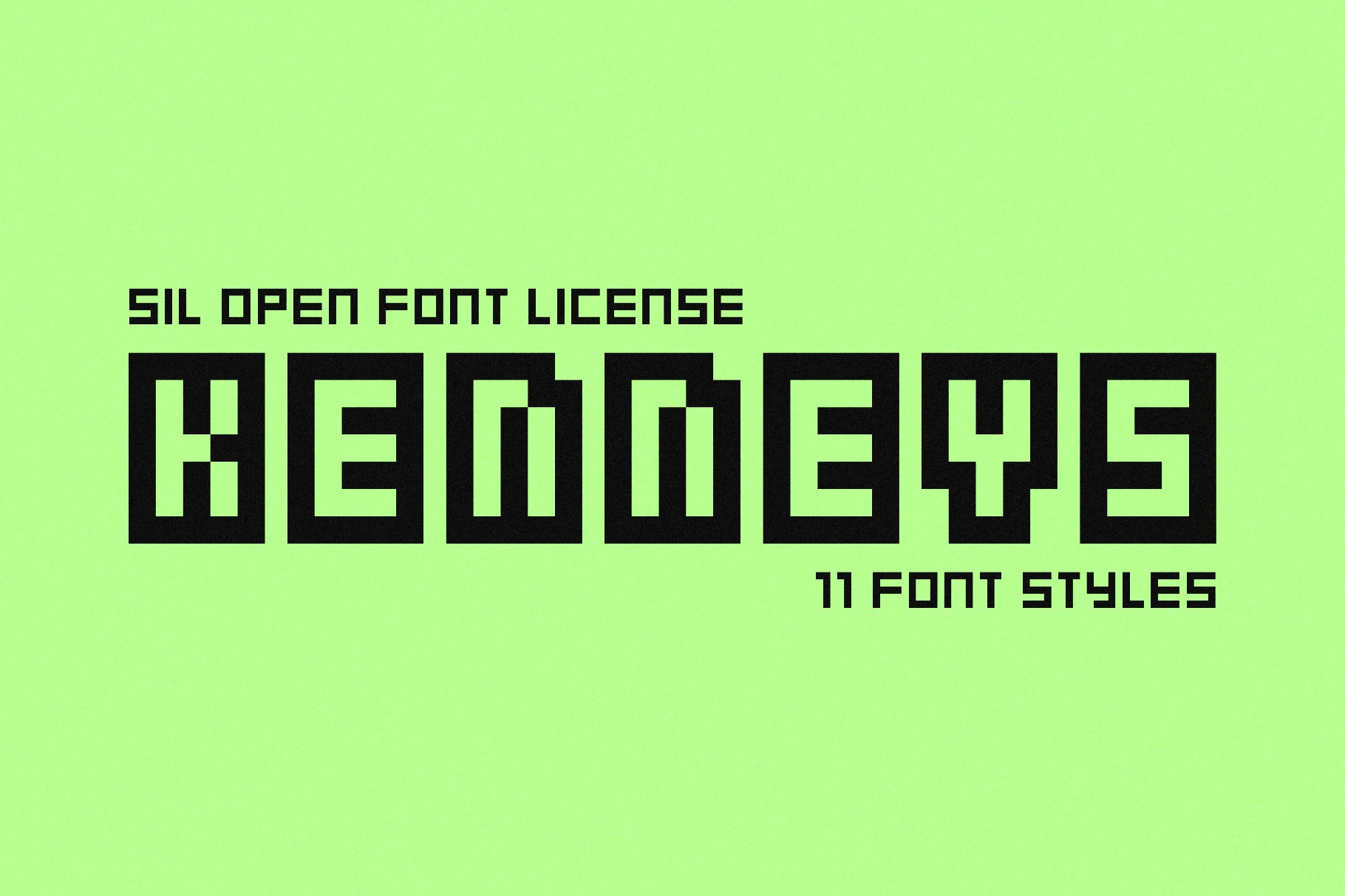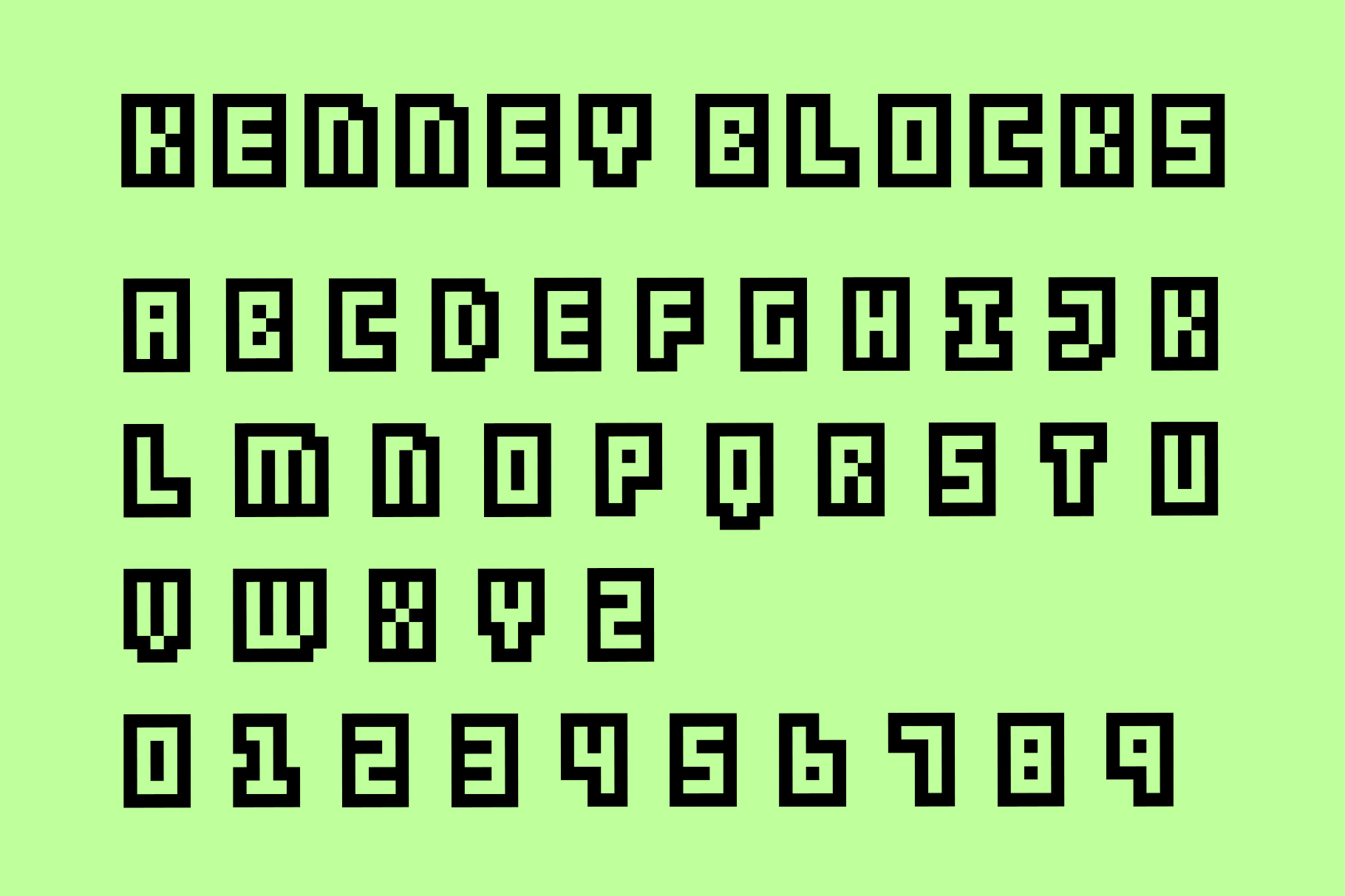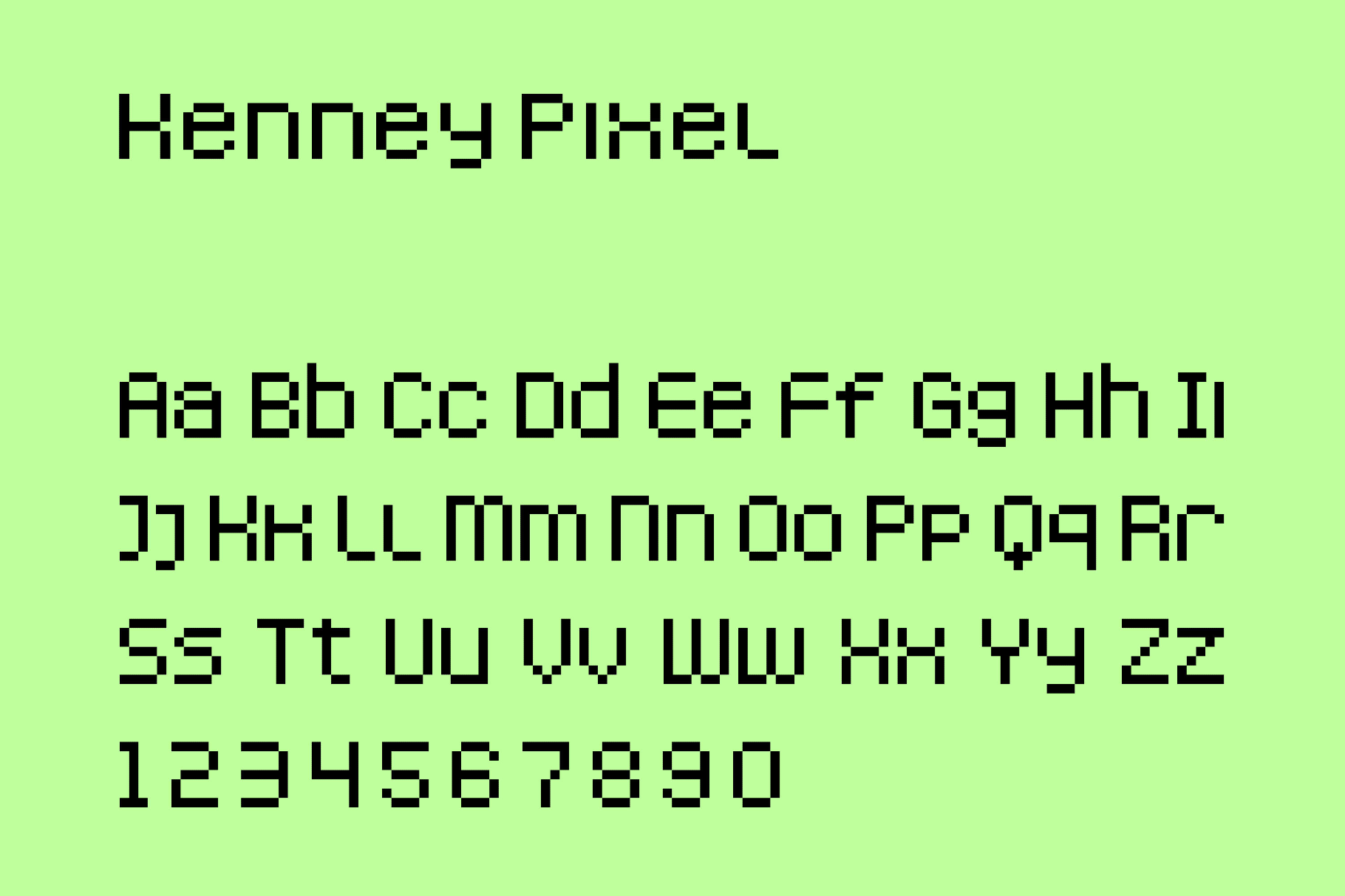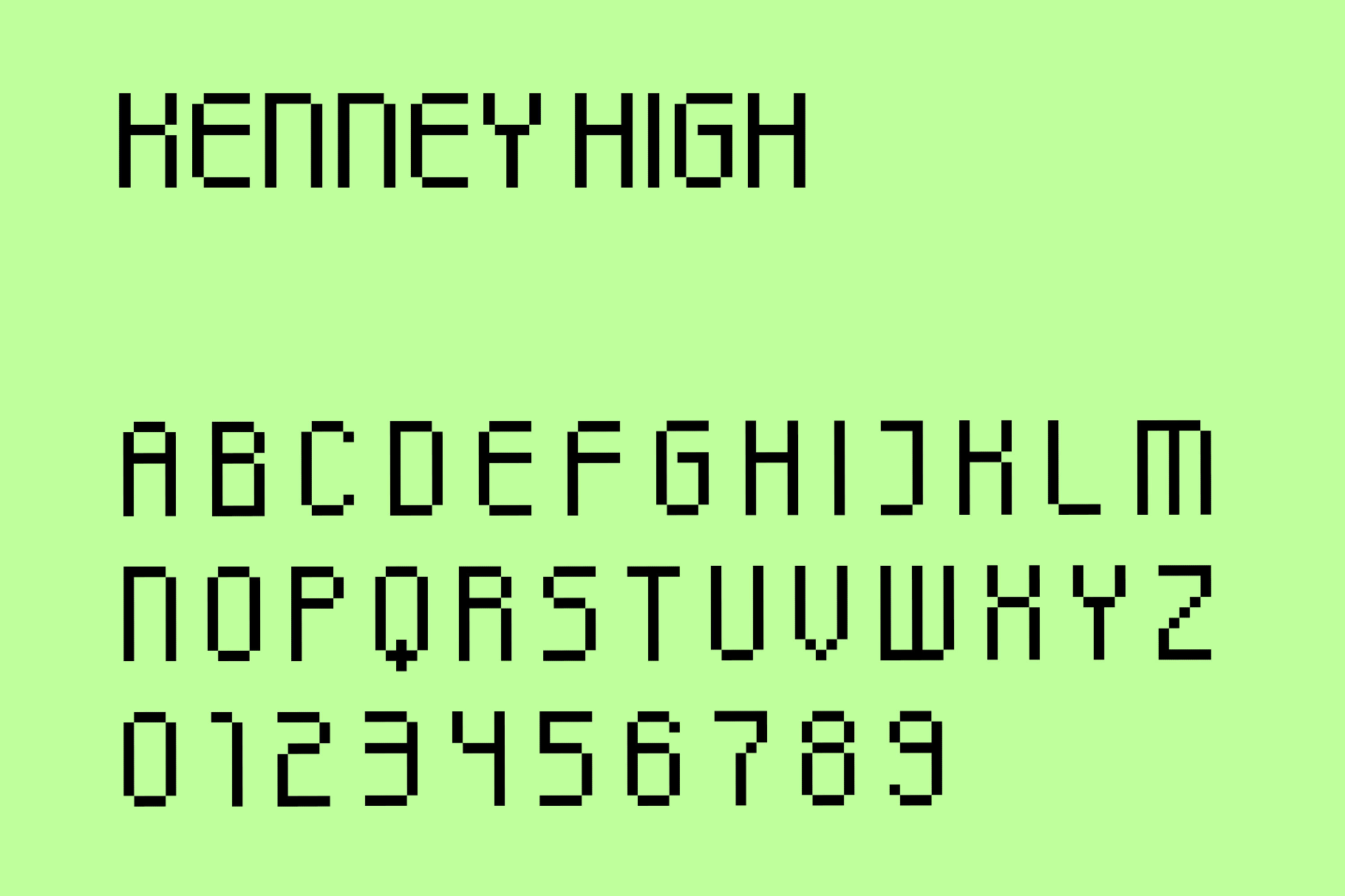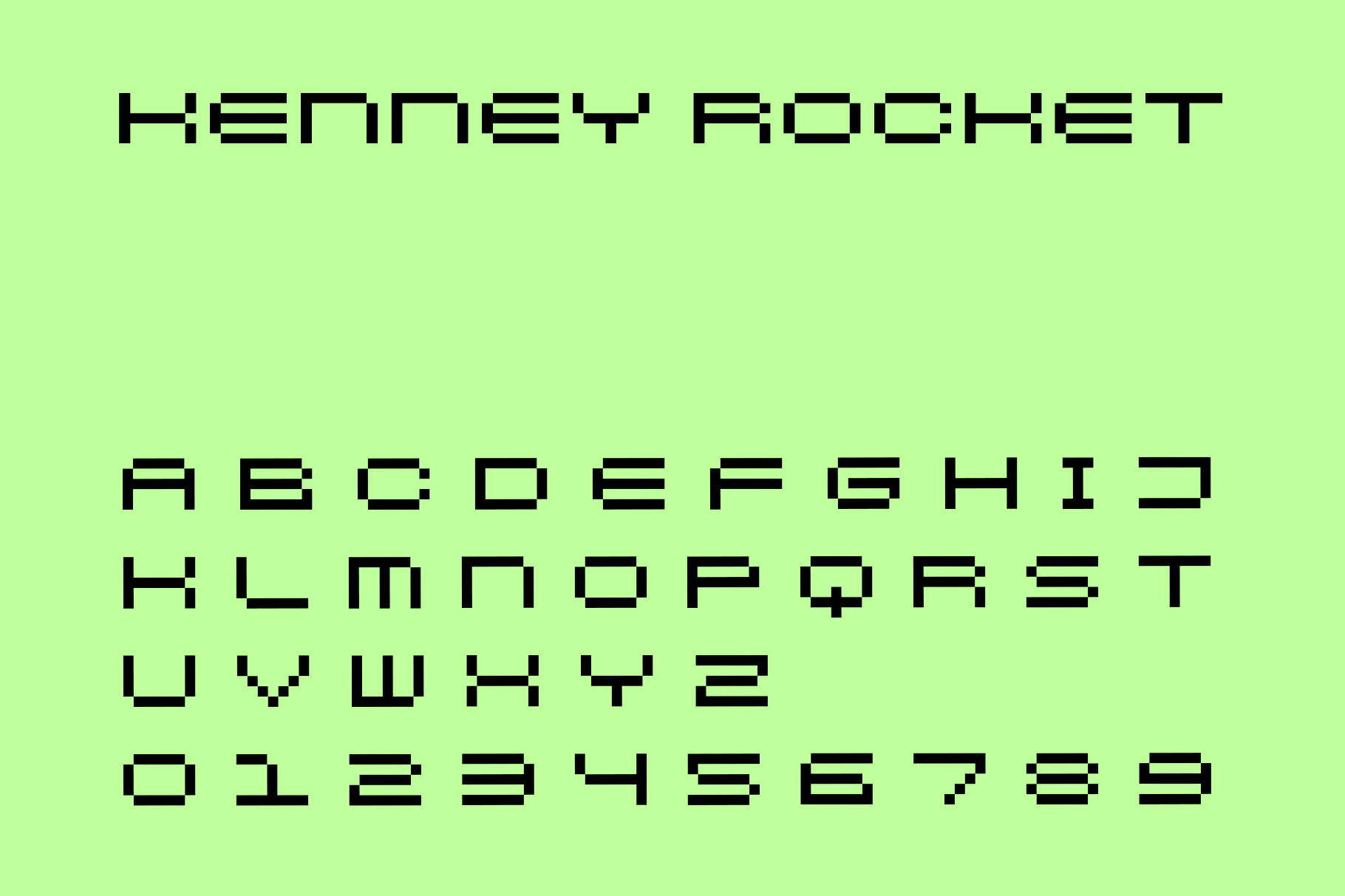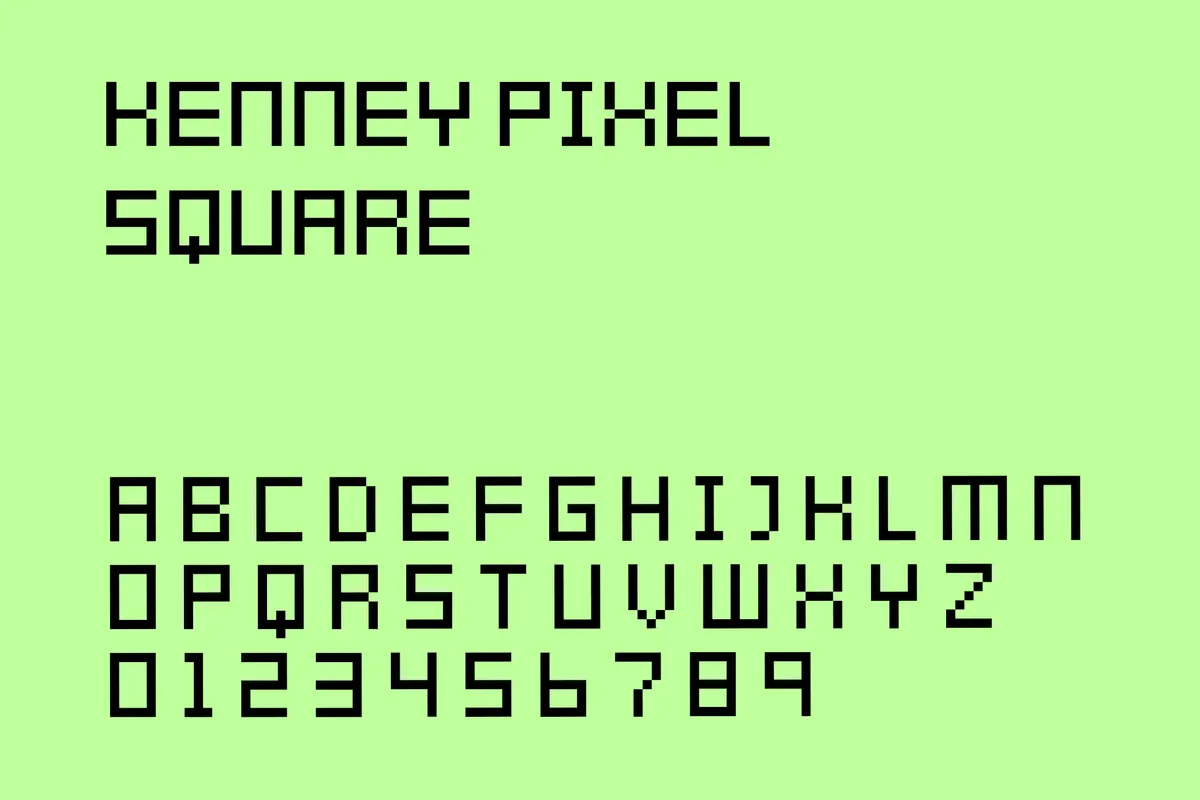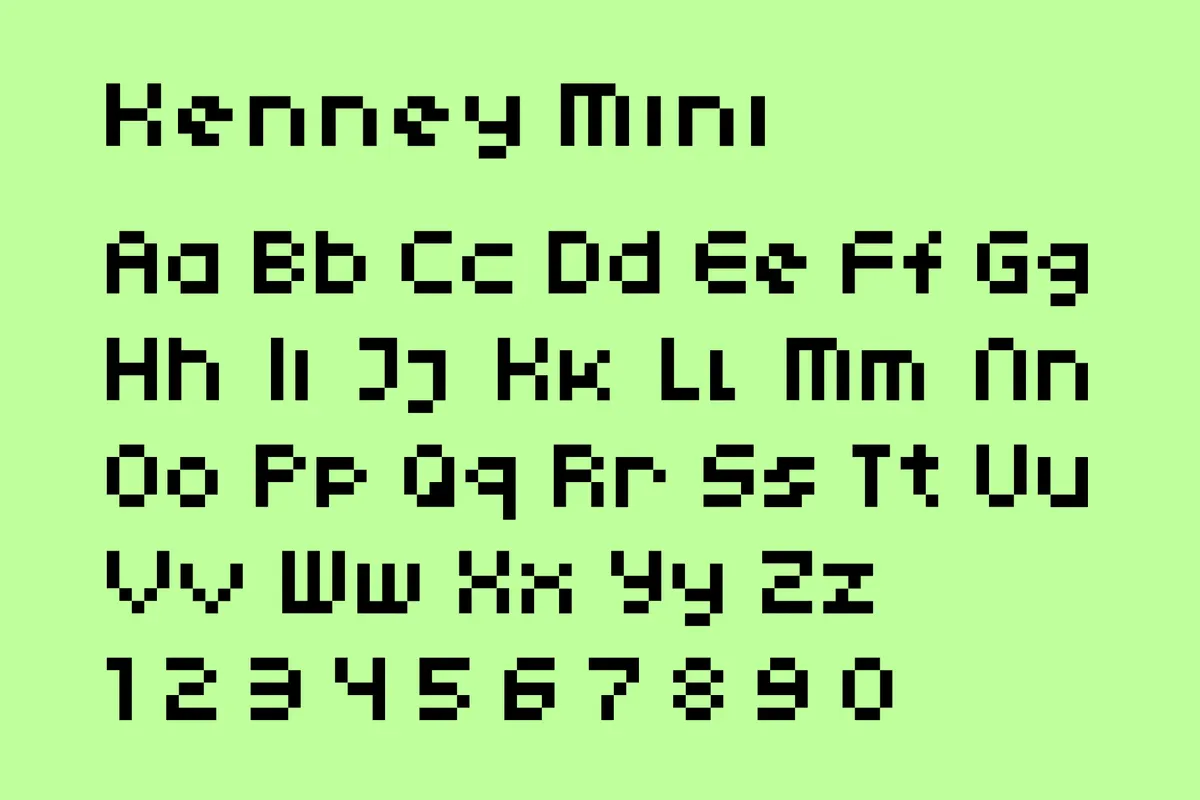
Kenneys Block Family
Kenneys is a friendly, rounded font family with a handmade bounce that looks like indie game lettering and modern cartoon title cards. It’s a great fit for game menus, app headers, HUD labels, kid-focused branding, sticker graphics, packaging, streaming overlays, posters, and social media titles.
Eleven coordinated styles in one pack, mixing pixel and vector cuts.
Uppercase letter.
Numbers, punctuation, and symbols.
International character support with multilingual coverage across extended Latin scripts.